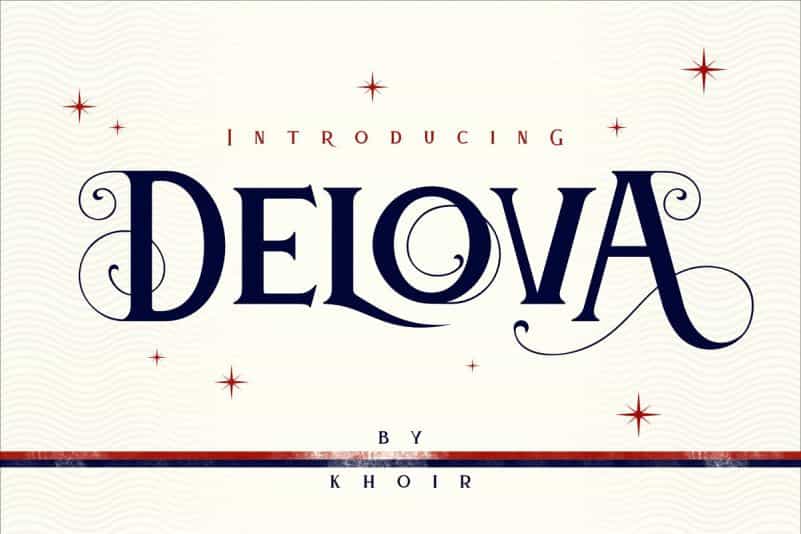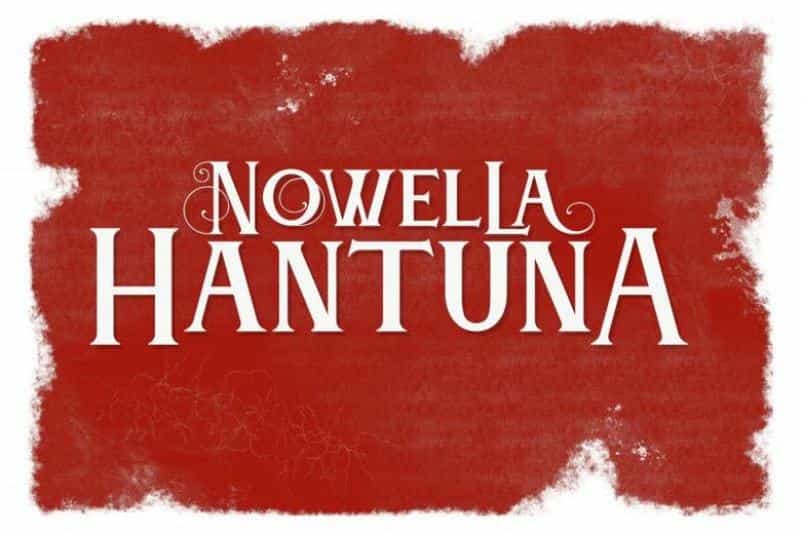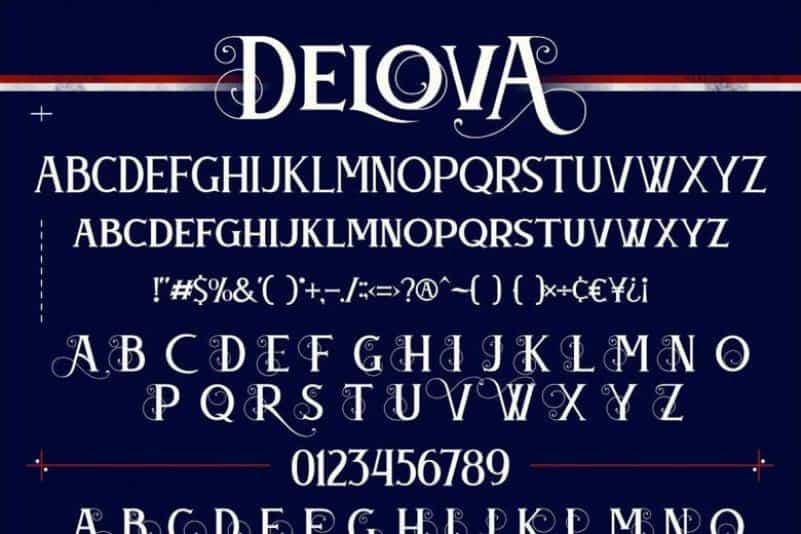
For those of you who love fonts: Thanks for stopping by and looking at Delova Font, a combination of serif and victorian styles. Delova is an elegant classic serif font with a touch of minimalist modern style and a total of 104 alternative characters to help you experiment with different ways of design.